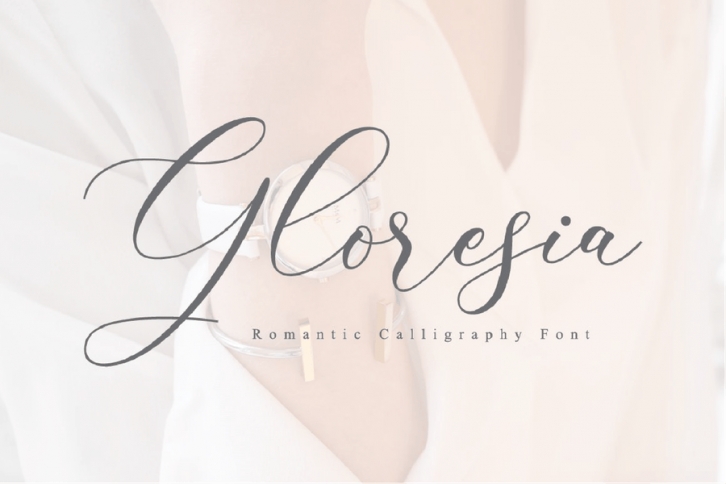
The Gloresia is a stylish script font. It has a modern and classy look which can be used to add an amazing personal touch to your designs.It can be used for logos, branding, invitations, stationary, wedding designs, social media, advertisements, labels, watermarks, and much more!